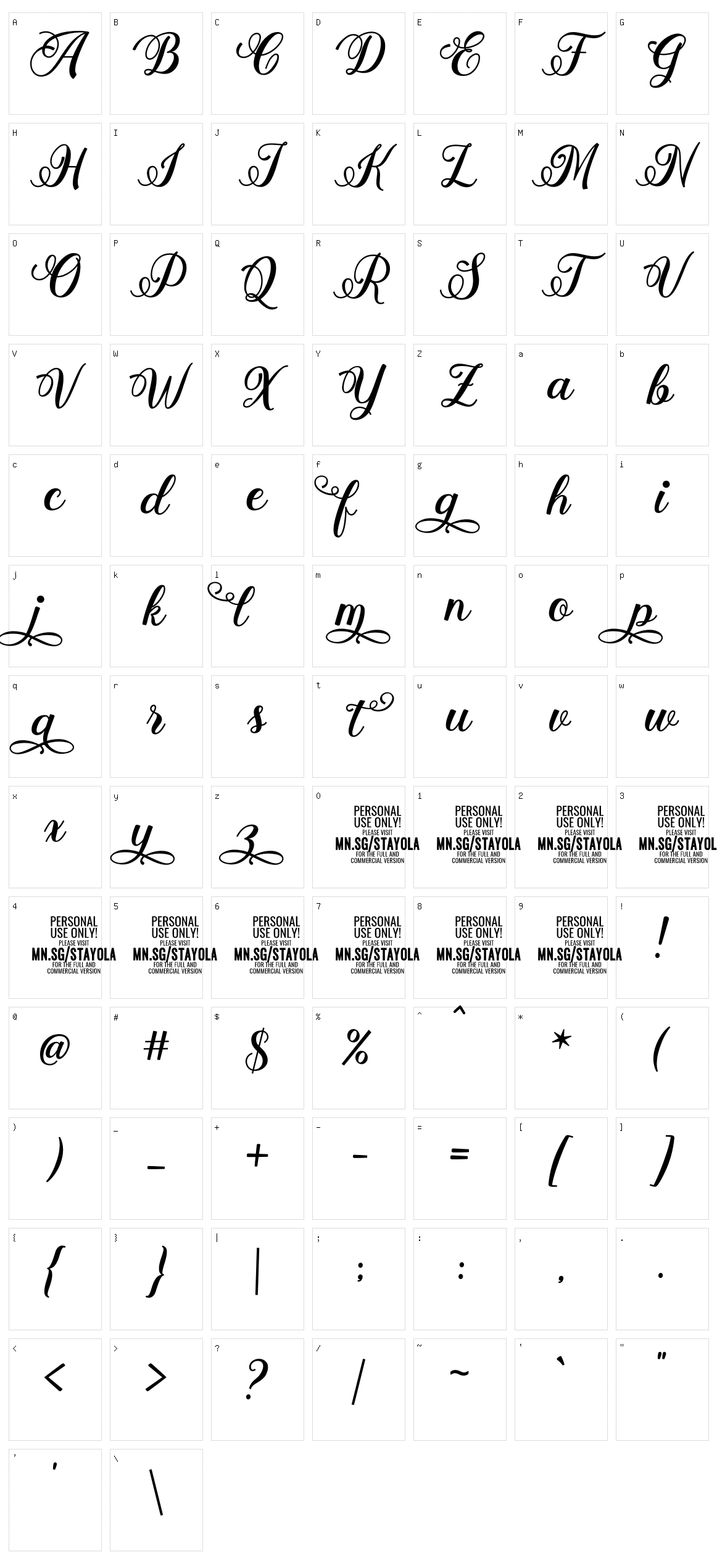
Stayola is a beautiful calligraphic typeface.
This script font has strong contrasts and wonderful flow.
Its feminine twists and swirls makes for a lettering with a charming style and quirky personality.
The Stayola family consists of eight distinct font styles:
The weights Light, Bold, Black, each as the cute Heart style and the decorative Swash variation.
The font is built with advanced OpenType functionality and has a guaranteed top-notch quality, containing stylistic and contextual alternates, ligatures and more features; all to give you full control and customizability.
It contains all characters and symbols you'll ever need, including all punctuation and numbers.